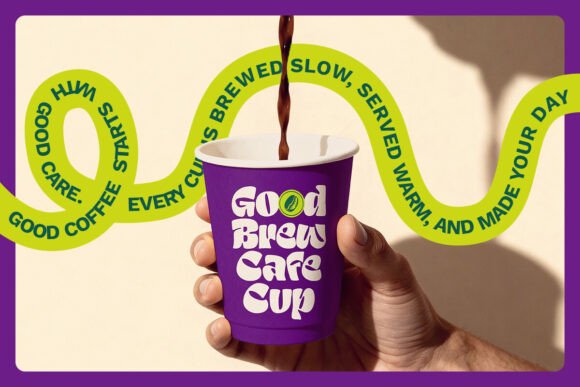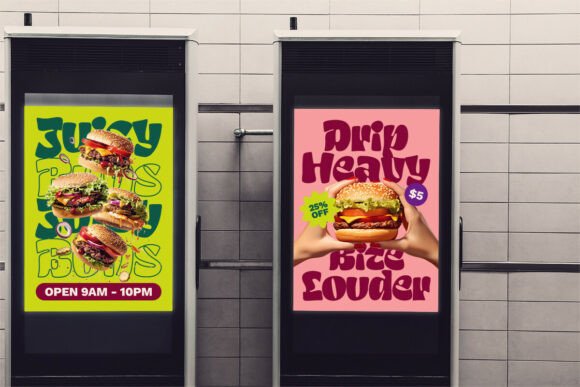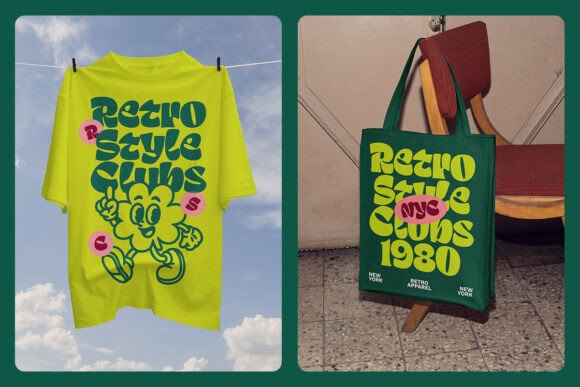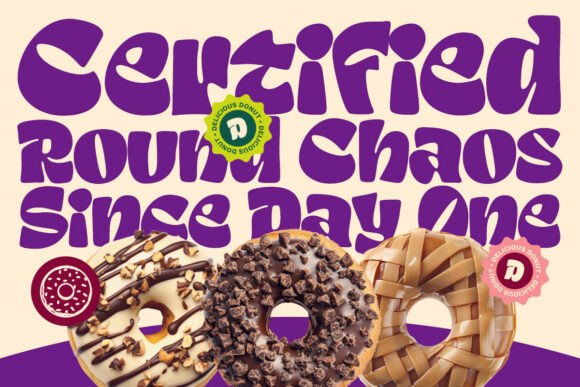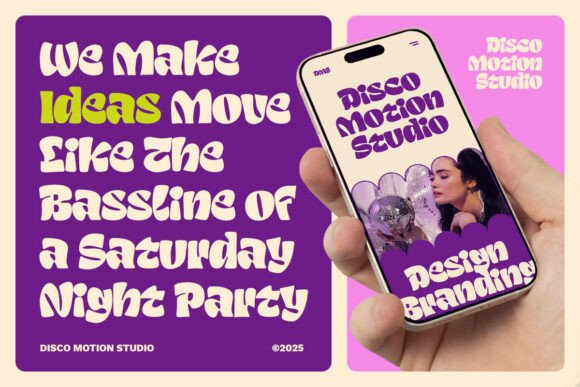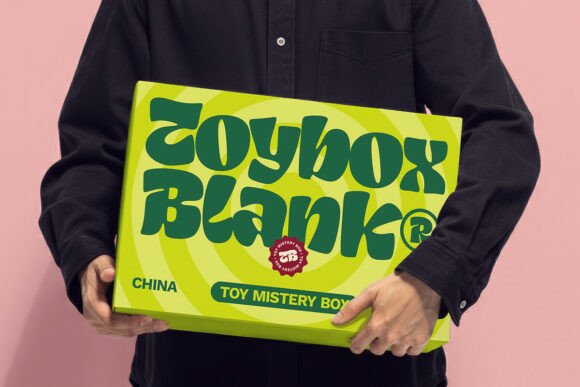
The Ultimate Design Game-Changer: Fat Grace Font
Have you ever been in the middle of a design project, pouring your heart and soul into it, only to hit a roadblock when it comes to finding the perfect font? I certainly have! It was during one of those moments, working on a vibrant poster design for a local craft fair, that I stumbled upon the Fat Grace font. And let me tell you, it was like a breath of fresh air!
A Personal Design Moment: When Fonts Make All the Difference
I was aiming for a playful, eye-catching vibe that would capture the essence of handmade crafts and local artisans. But no matter which fonts I tried, they either fell flat or seemed too generic. That was until I discovered Fat Grace. Its chunky, bubbly letterforms instantly brought a sense of fun and warmth to my design. It was like the missing piece I had been searching for!
What I Love About Fat Grace ✨
- ✅ Playful yet confident: Fat Grace exudes a sense of joy and playfulness, making it perfect for designs that need to stand out.
- ✅ Versatile: Whether you’re working on posters, merchandise, packaging, or logos, Fat Grace delivers a friendly, memorable visual voice.
- ✅ Easy on the eyes: The font’s soft curves and balanced weight create a visual charm that draws attention without overwhelming the design.
- ⚠️ Legibility at small sizes: While Fat Grace shines at larger sizes, it may lose some legibility when scaled down too far.
- ⚠️ Overuse: Given its bold character, using Fat Grace excessively throughout a design can become overwhelming.
The Story Behind Fat Grace: Designer Inspiration
Fat Grace was born out of a desire to capture the essence of groovy retro aesthetics and hand-drawn organic movement. Its designer, inspired by the playful typography of the 70s and 80s, aimed to create a font that feels lively, expressive, and unforgettable. The result is a typeface that embodies a bright, happy mood—perfect for designs that need to stand out with confidence and joy.
Q: What makes Fat Grace unique?
A: Fat Grace stands out with its chunky, bubbly letterforms that bring an instant sense of fun and warmth to any design.
Q: Is Fat Grace easy to read?
A: Fat Grace shines at larger sizes and is generally easy to read. However, at very small sizes, legibility may decrease.